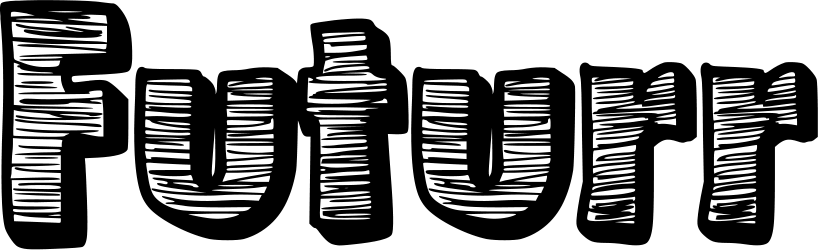
Futurr Font
Designed byJake Luedecke
There is a looseness to sketch fonts that can make them approachable and friendly. Futurr is one of them and has a bold and condensed style of lettering. The characters have an outlined and kind of 3D shape where the inside of them are shaded with lines that have created a rather wooden finish.